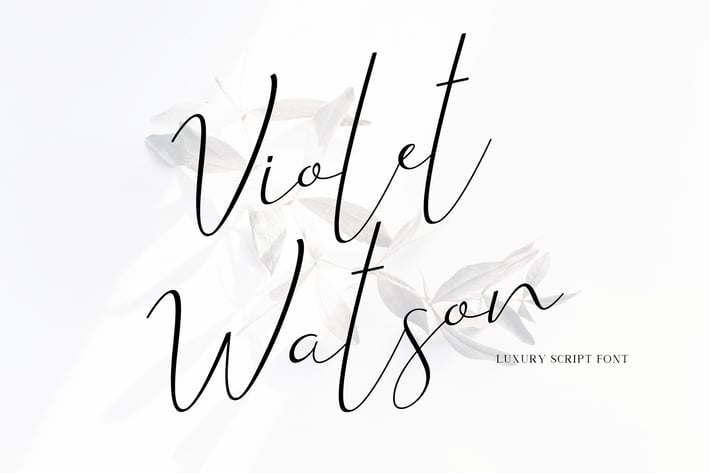
Violet Watson - Script Font
Hello! We are happy to introduce our new font "Violet Watson". Violet Watson is a script font, this font looks classy, luxury, elegant, romantic, and awesome.
Violet Watson script Font is the best choice for your professional design projects, including : logo, poster design, t-shirt, headline,
flyer, cd cover album, quotes, business card, branding, magazines, social media, advertisements, product designs, or
something that need elegant, branding and awesome looks.